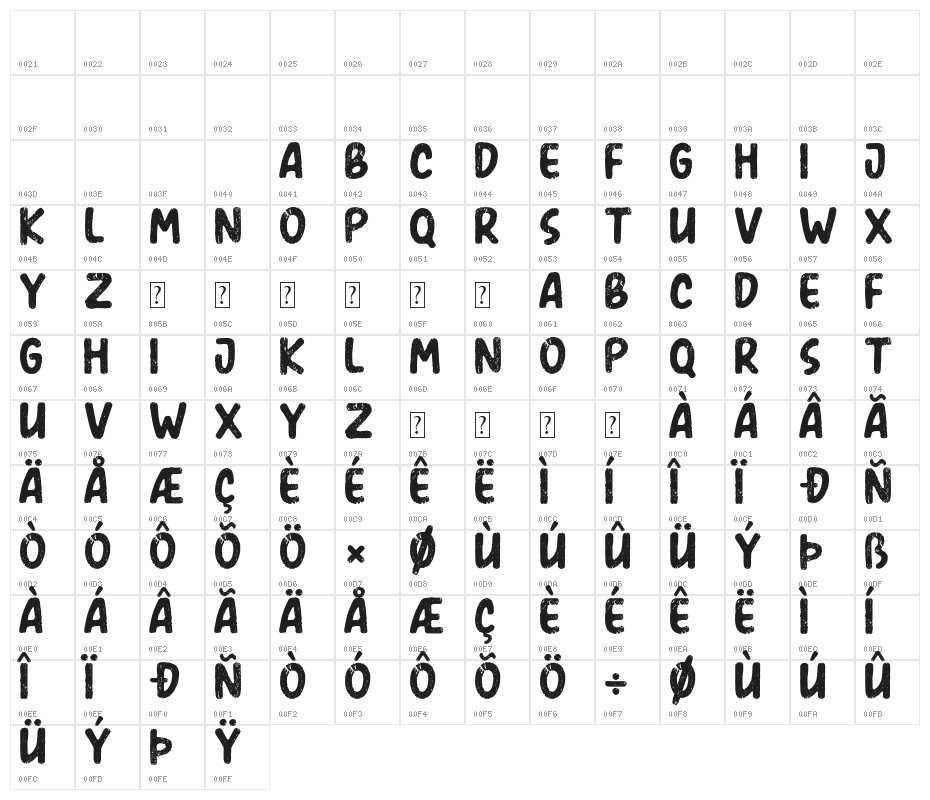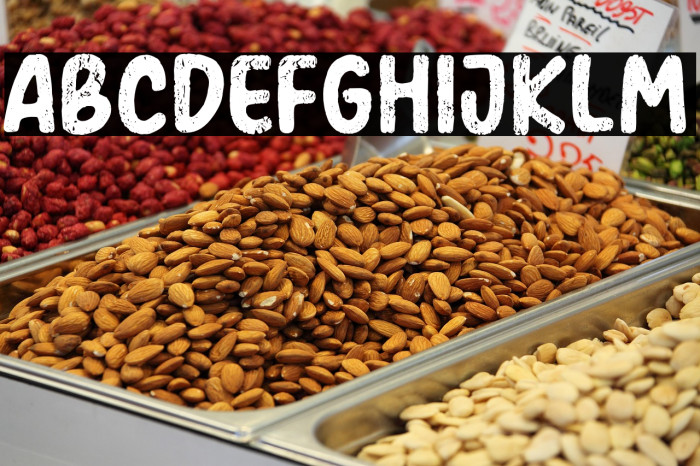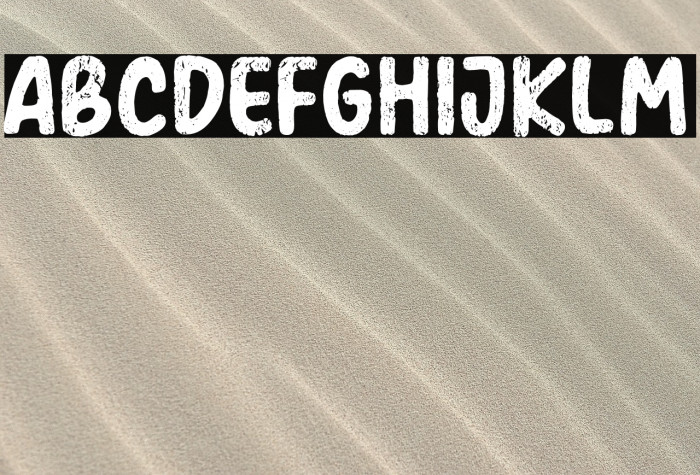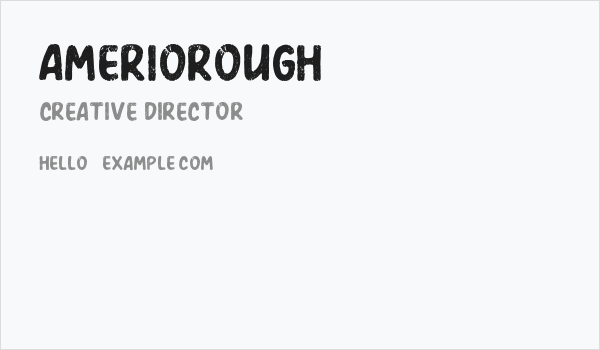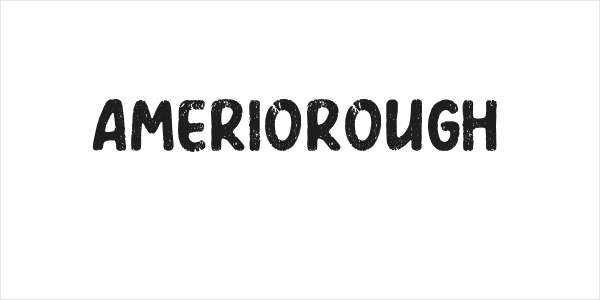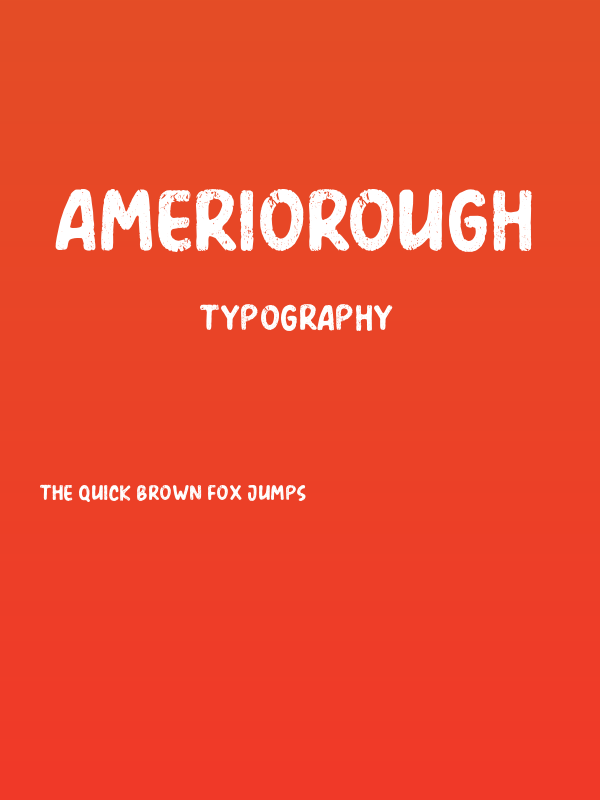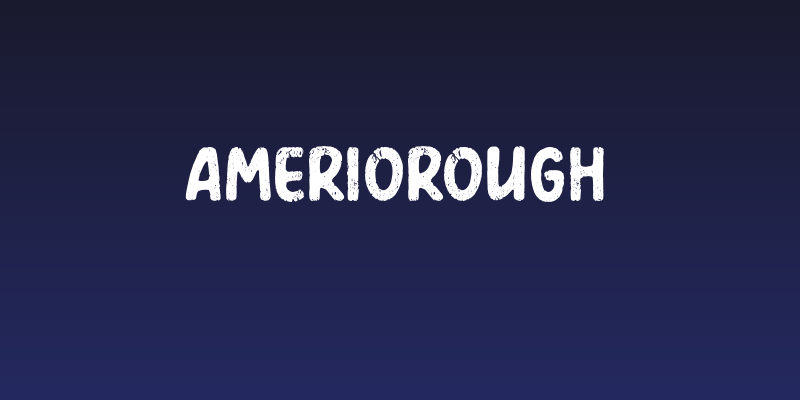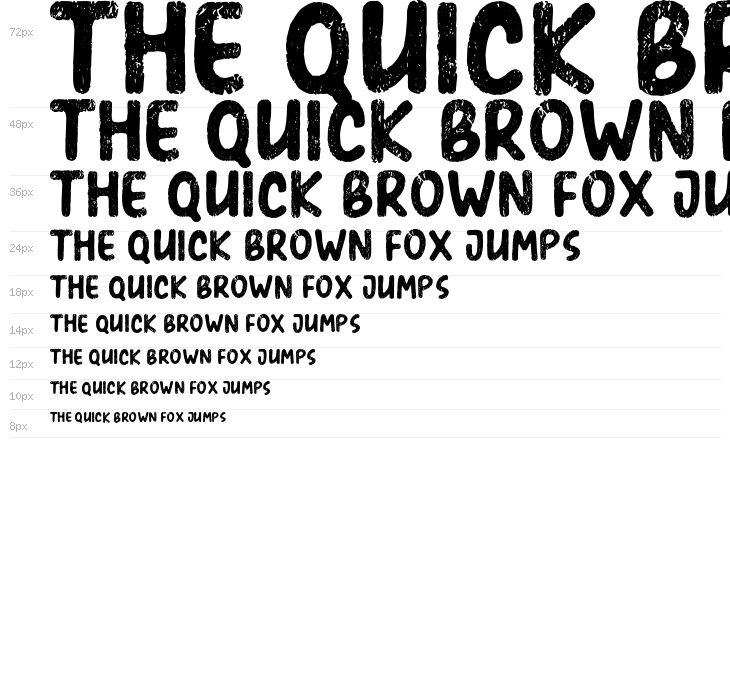
AmerioRough Font
AmerioRough Description
This font features a bold, textured style with a rough, distressed appearance. The characters are thick and substantial, giving a sense of strength and durability. Each letter has a unique, hand-crafted look, with irregular edges and a slightly uneven baseline, adding to its rustic charm. The texture within the letters creates a vintage, worn effect, reminiscent of old printing techniques or weathered signage. Despite its roughness, the font maintains good legibility, making it suitable for impactful headlines or creative designs that require a bold statement.
| Proposed Projects | Ideal for projects requiring a rustic or vintage feel, such as posters, logos, branding, packaging, and apparel design. |